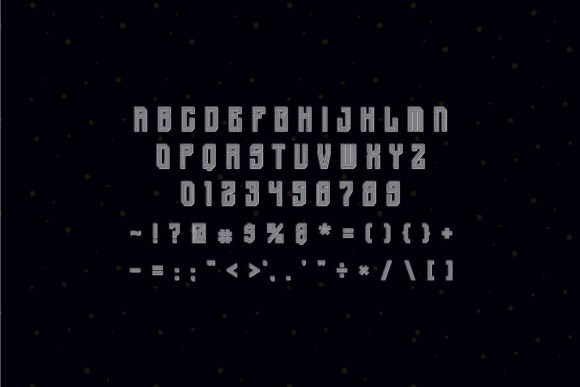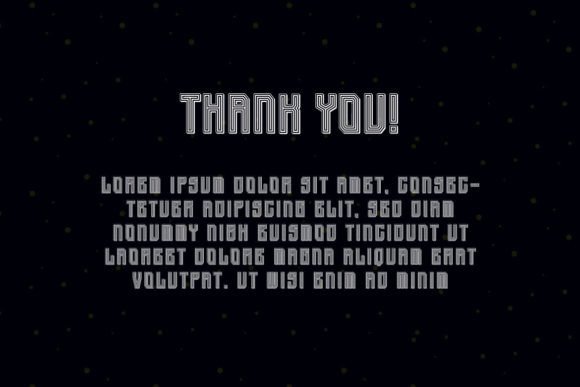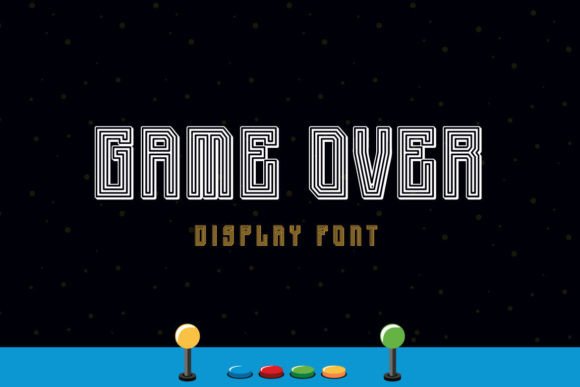
Game Over Font: Elevate Your Designs with a Cool and Incredibly Interesting Display Font
Are you tired of using the same old fonts in your designs? Do you want to add a touch of excitement and personality to your creations? Look no further than the Game Over font, a cool and incredibly interesting display font that’s sure to elevate your fonts’ library.
The Power of Game Over Font
Game Over is a unique and eye-catching font that’s perfect for designers and crafters who want to add a bit of fun and whimsy to their designs. With its bold and playful style, this font is sure to grab attention and leave a lasting impression. Whether you’re working on a logo, poster, or social media graphic, Game Over font is an incredible asset to have in your toolkit.
What Makes Game Over Font So Special?
So, what sets Game Over font apart from other fonts out there? Here are just a few things that make it so special:
- Unique Style: Game Over font has a one-of-a-kind style that’s sure to stand out from the crowd. Its bold and playful design makes it perfect for adding a touch of personality to your designs.
- Versatility: Despite its bold style, Game Over font is surprisingly versatile. It can be used for a wide range of projects, from logos and posters to social media graphics and more.
- Easy to Read: Even though Game Over font is bold and playful, it’s still easy to read. This makes it perfect for designs where you want to make a statement but still need to communicate a message clearly.
How to Use Game Over Font in Your Designs
Now that we’ve covered what makes Game Over font so special, let’s talk about how to use it in your designs. Here are a few tips to get you started:
- Use it as a Headline Font: Game Over font is perfect for headlines and titles. Use it to add a bold and playful touch to your designs.
- Pair it with Other Fonts: Game Over font pairs well with a wide range of other fonts. Try pairing it with a clean sans-serif font for a bold and modern look.
- Experiment with Colors: Game Over font looks great in a wide range of colors. Experiment with different colors and gradients to find the perfect look for your design.
Benefits of Using Game Over Font
So, what are the benefits of using Game Over font in your designs? Here are just a few:
- Adds Personality: Game Over font adds a touch of personality and whimsy to your designs. This can help you stand out from the crowd and leave a lasting impression.
- Increases Engagement: The bold and playful style of Game Over font is sure to grab attention and increase engagement. This makes it perfect for designs where you want to encourage interaction.
- Versatile: Game Over font is surprisingly versatile. It can be used for a wide range of projects, from logos and posters to social media graphics and more.
In conclusion, Game Over font is a cool and incredibly interesting display font that’s sure to elevate your fonts’ library. With its unique style, versatility, and ease of use, it’s perfect for designers and crafters who want to add a bit of fun and whimsy to their designs. Whether you’re working on a logo, poster, or social media graphic, Game Over font is an incredible asset to have in your toolkit.